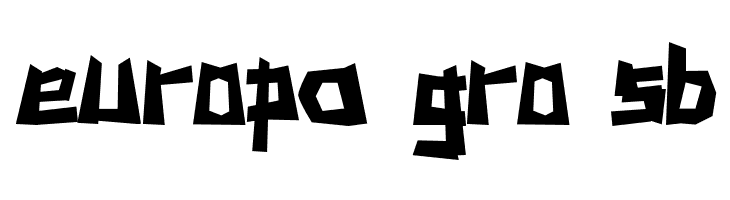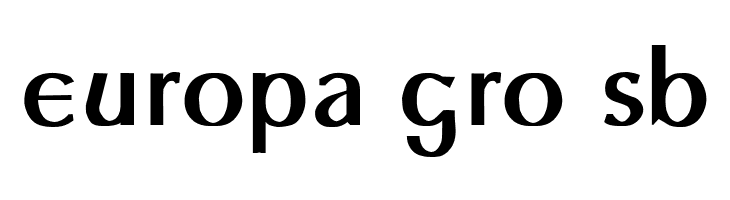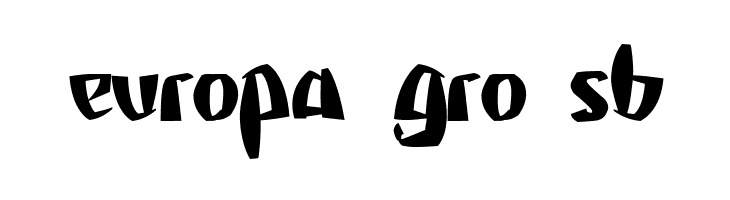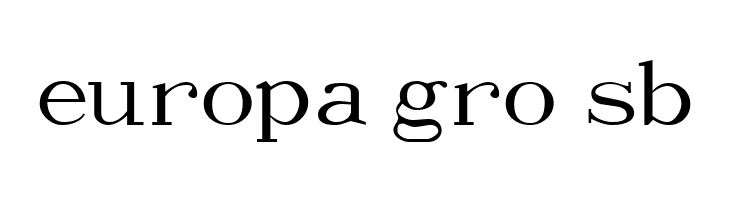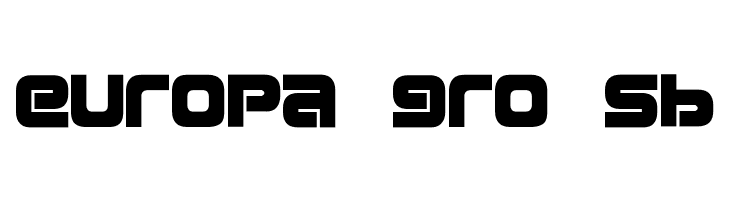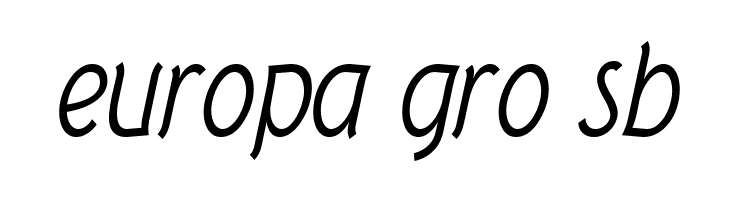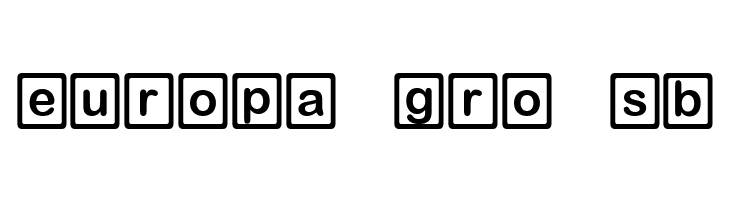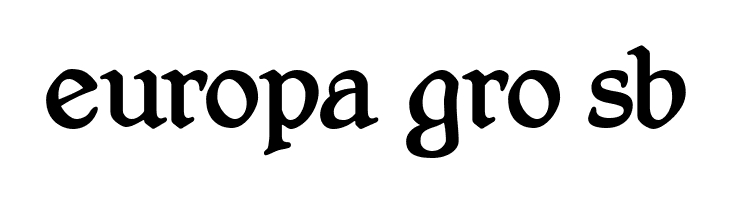
A sleek, modern font with elongated, slightly slanted characters and smooth curves.
A modern, elegant font with sharp and smooth elements, ideal for versatile applications.
A bold, geometric font with rounded edges and a modern, futuristic style.
A bold, geometric font with rounded edges and a strong presence.
A dynamic italic font with sleek, slanted letterforms and a modern aesthetic.
A modern, boxed font with rounded corners and bold, uniform strokes.
A classic serif font with elegant, refined letterforms and pronounced serifs.